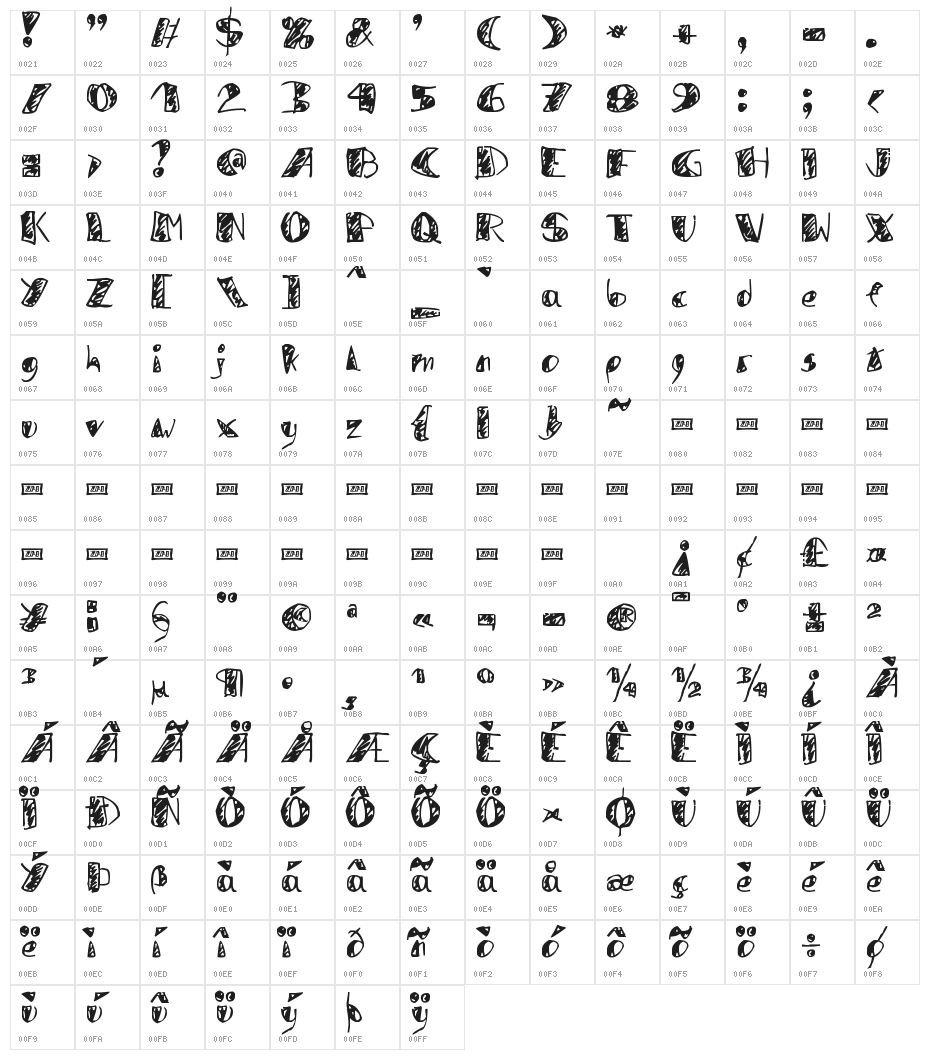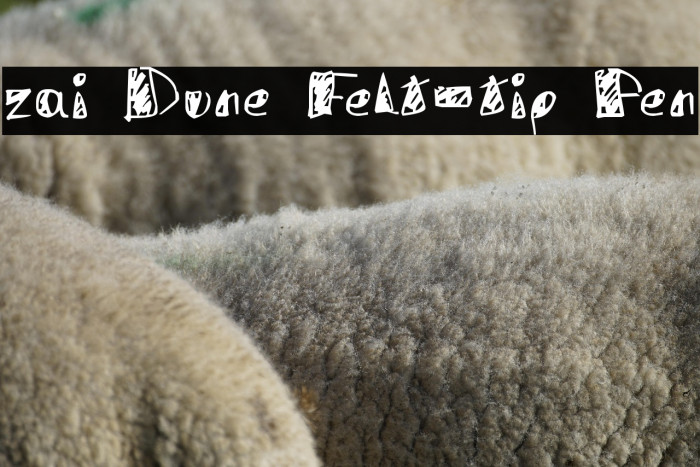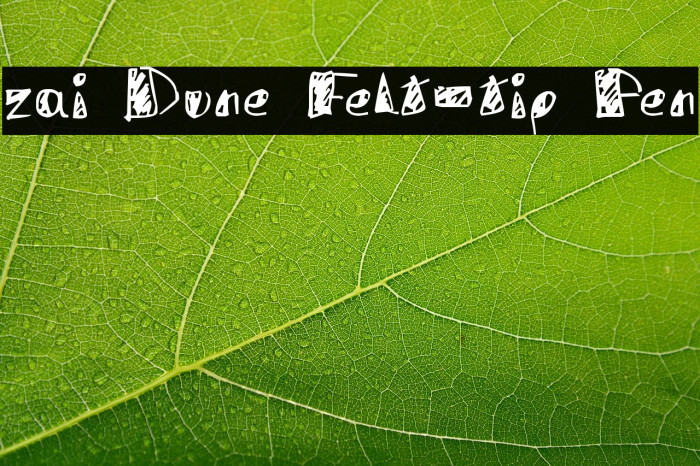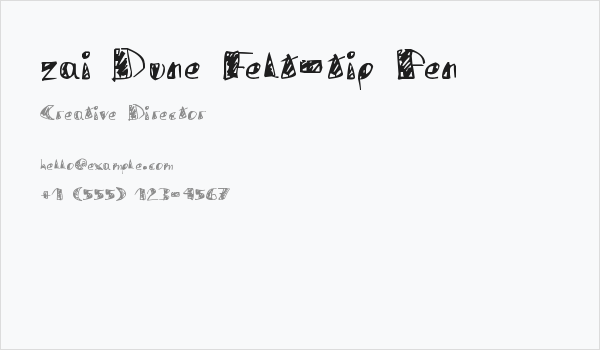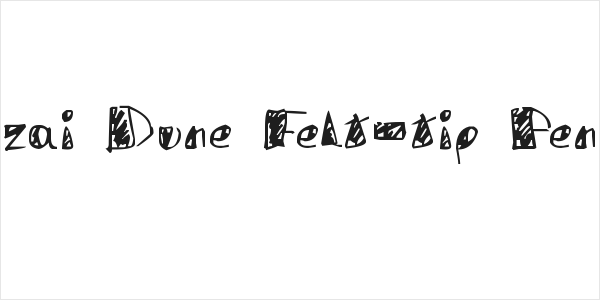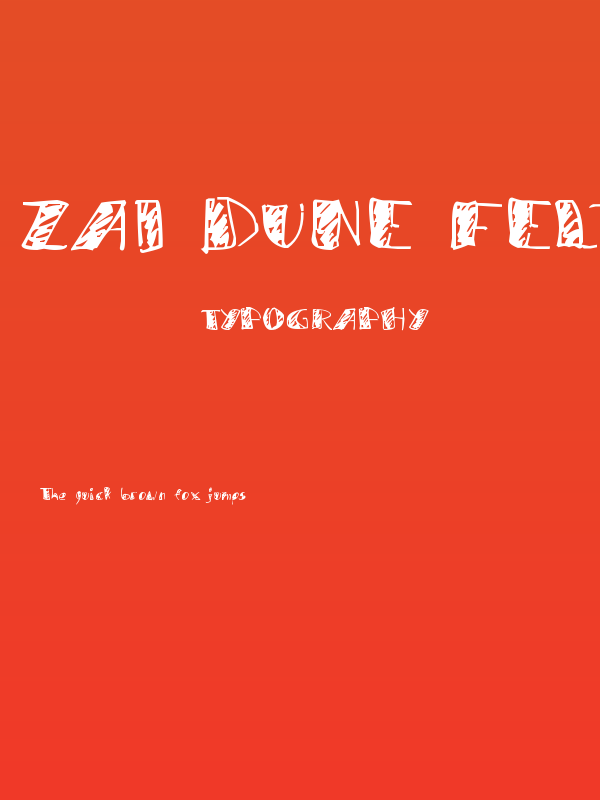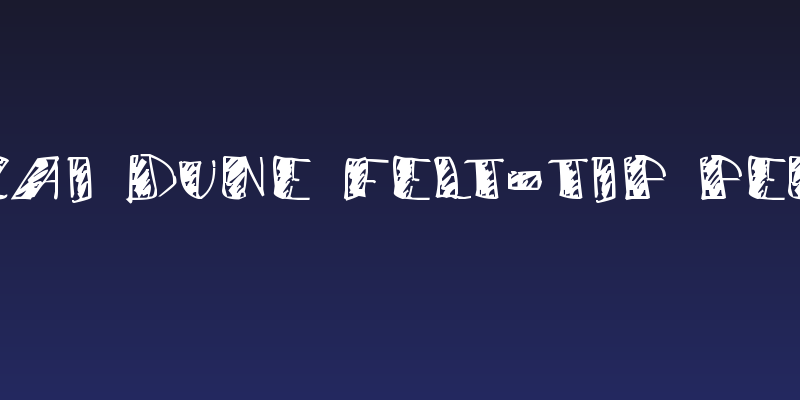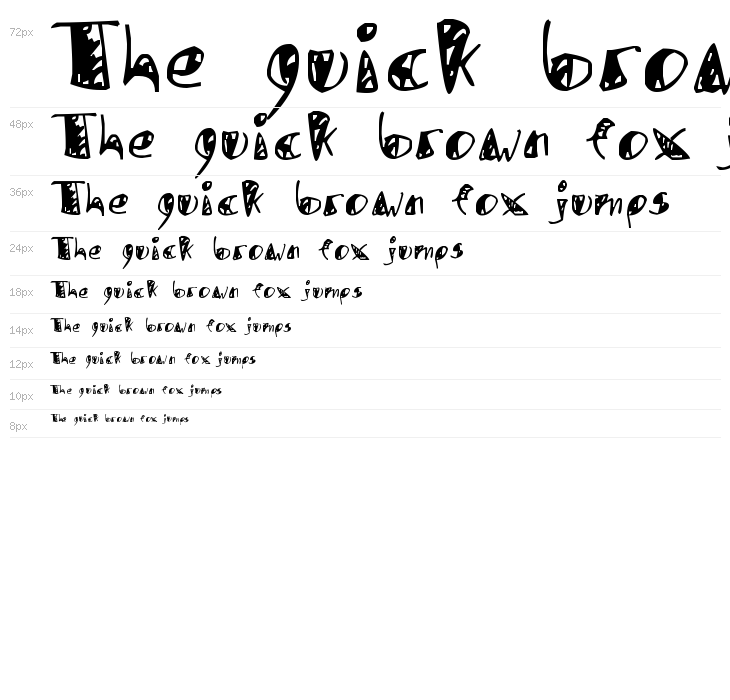
zai Dune Felt-tip Pen Font
zai Dune Felt-tip Pen Description
This font exhibits a playful and artistic style, reminiscent of hand-drawn lettering with a felt-tip pen. The characters are bold and expressive, featuring irregular shapes and dynamic strokes that convey a sense of movement and creativity. The uppercase letters are particularly striking, with a mix of angular and curved lines that create a unique visual rhythm. The lowercase letters maintain this energetic style, offering a cohesive look across the alphabet. Numbers and special characters follow the same design principles, ensuring consistency throughout. The overall appearance is both modern and whimsical, making it suitable for projects that require a touch of personality and flair.
| Overall Style | Modern, Whimsical |
| Proposed Projects | Ideal for creative projects such as children's book covers, playful branding, artistic posters, and unique invitations. |